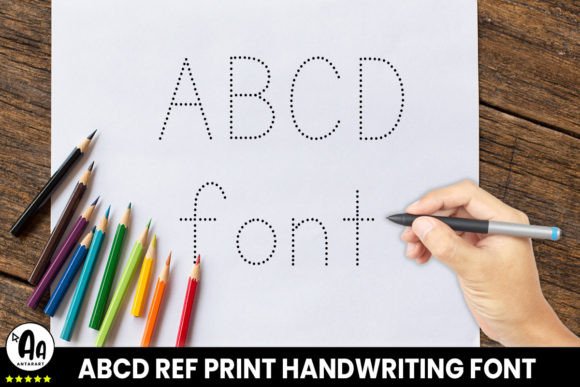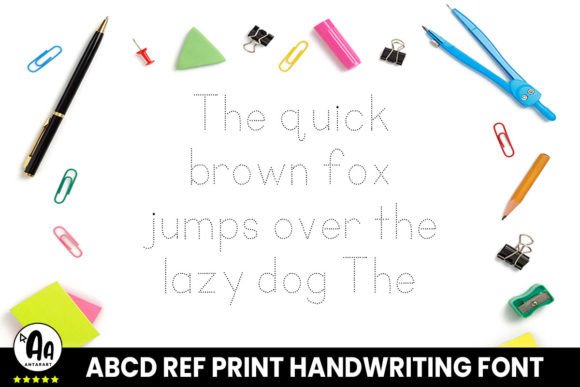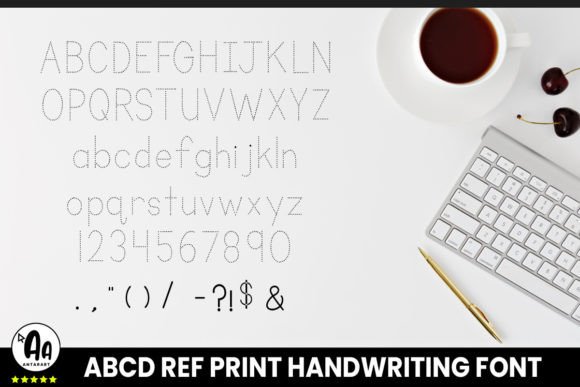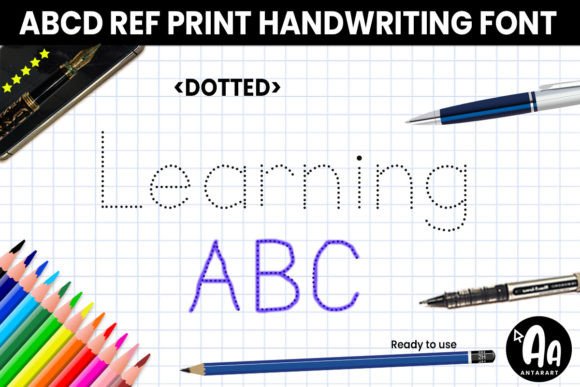
Introducing the Abcd Ref Dotted Font: A Fun and Interactive Learning Tool
Are you a teacher, parent, or designer looking for a creative way to help children learn the print alphabet? Look no further than the Abcd Ref Dotted Font, part of the ABCD Ref font family. This practical display font is based on the D’Nealian Method US school and is designed to make learning fun and interactive.
What is the Abcd Ref Dotted Font?
The Abcd Ref Dotted Font is a unique and engaging font that features dotted letters, making it perfect for creating worksheets, activity sheets, and other educational materials. The font is based on the D’Nealian Method, a handwriting approach that emphasizes correct letter formation and spacing. The Abcd Ref Dotted Font is a great tool for teachers, homeschoolers, and parents who want to provide their children with a fun and interactive way to learn the print alphabet.
Key Features of the Abcd Ref Dotted Font
- Based on the D’Nealian Method: The Abcd Ref Dotted Font is designed to align with the D’Nealian Method, ensuring that children learn correct letter formation and spacing.
- Dotted Letters: The font features dotted letters, making it easy for children to practice tracing and writing.
- Practical Display Font: The Abcd Ref Dotted Font is a display font, making it perfect for creating eye-catching worksheets and activity sheets.
How to Use the Abcd Ref Dotted Font
The Abcd Ref Dotted Font is a versatile tool that can be used in a variety of ways. Here are a few ideas:
- Create Worksheets: Use the font to create worksheets for children to practice tracing and writing.
- Design Activity Sheets: Create activity sheets, such as word searches, crossword puzzles, and connect-the-dots, using the Abcd Ref Dotted Font.
- Make Alphabet Charts: Create alphabet charts and posters using the font to help children learn the print alphabet.
The Abcd Ref Dotted Font is a valuable resource for designers and crafters who create educational materials. Here are a few benefits:
- Save Time: With the Abcd Ref Dotted Font, you can create professional-looking worksheets and activity sheets in no time.
- Enhance Your Designs: The font’s unique dotted style adds a fun and interactive touch to your designs.
- Expand Your Offerings: By using the Abcd Ref Dotted Font, you can expand your offerings to include educational materials, making your designs more appealing to parents, teachers, and homeschoolers.